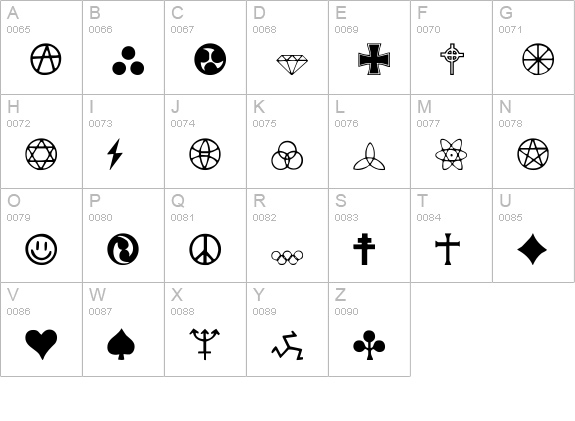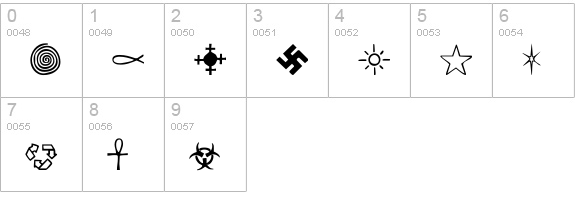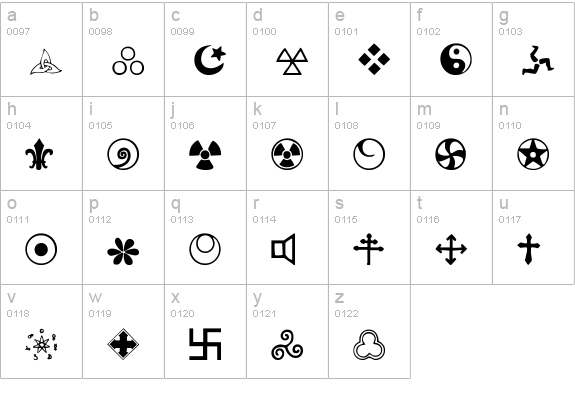
Zymbols Font Details
Introducing Zymbols font - a captivating fusion of modern elegance and artistic flair. This exquisite typeface boasts intricate symbols and striking characters that are sure to add a touch of sophistication to any design project. With its unique and eye-catching design, Zymbols font is perfect for creating logos, branding materials, invitations, and more. What sets Zymbols font apart is not just its stunning aesthetics, but also its versatility. Whether you're working on a sleek corporate presentation or a whimsical event poster, this font is sure to make a statement. Its sleek lines and stylish curves exude a sense of refinement and creativity that will elevate your designs to the next level. And the best part? Zymbols font is completely free to download! Yes, you read that right - you can access this exceptional font at no cost on FontsMarket.com. So why wait? Elevate your design projects with the captivating beauty of Zymbols font today.